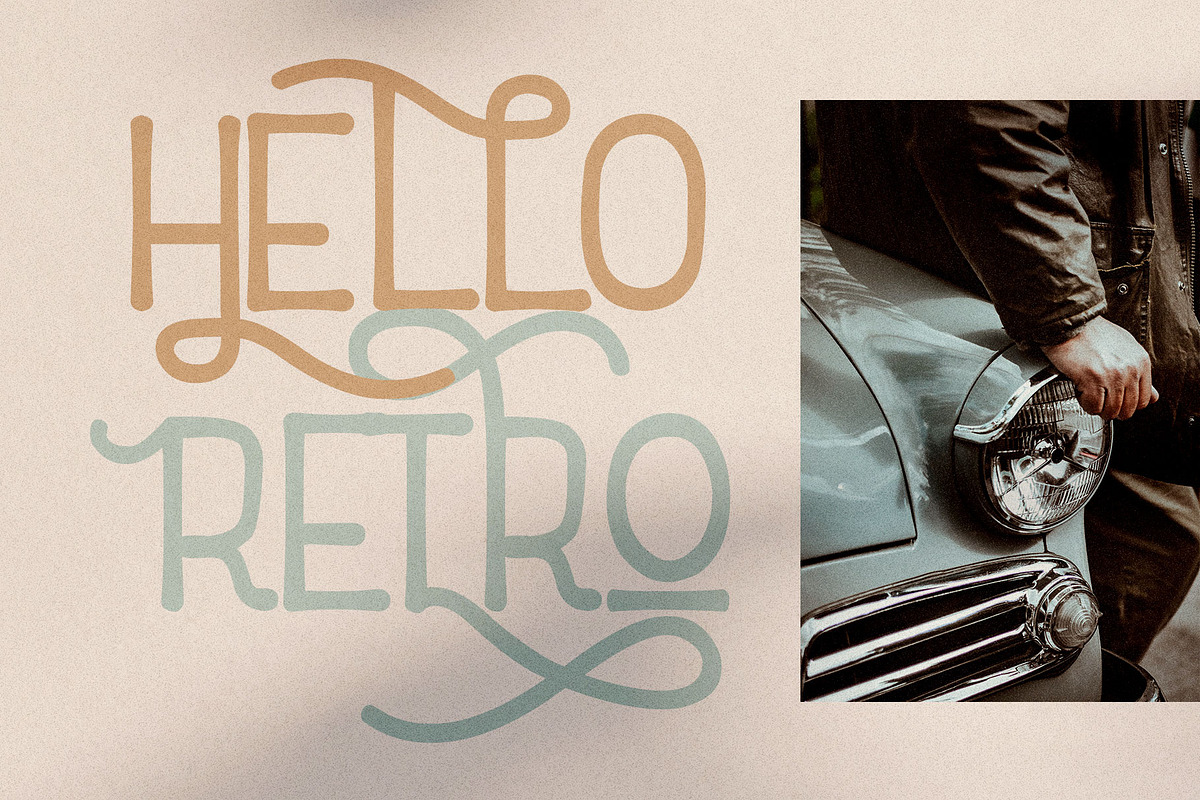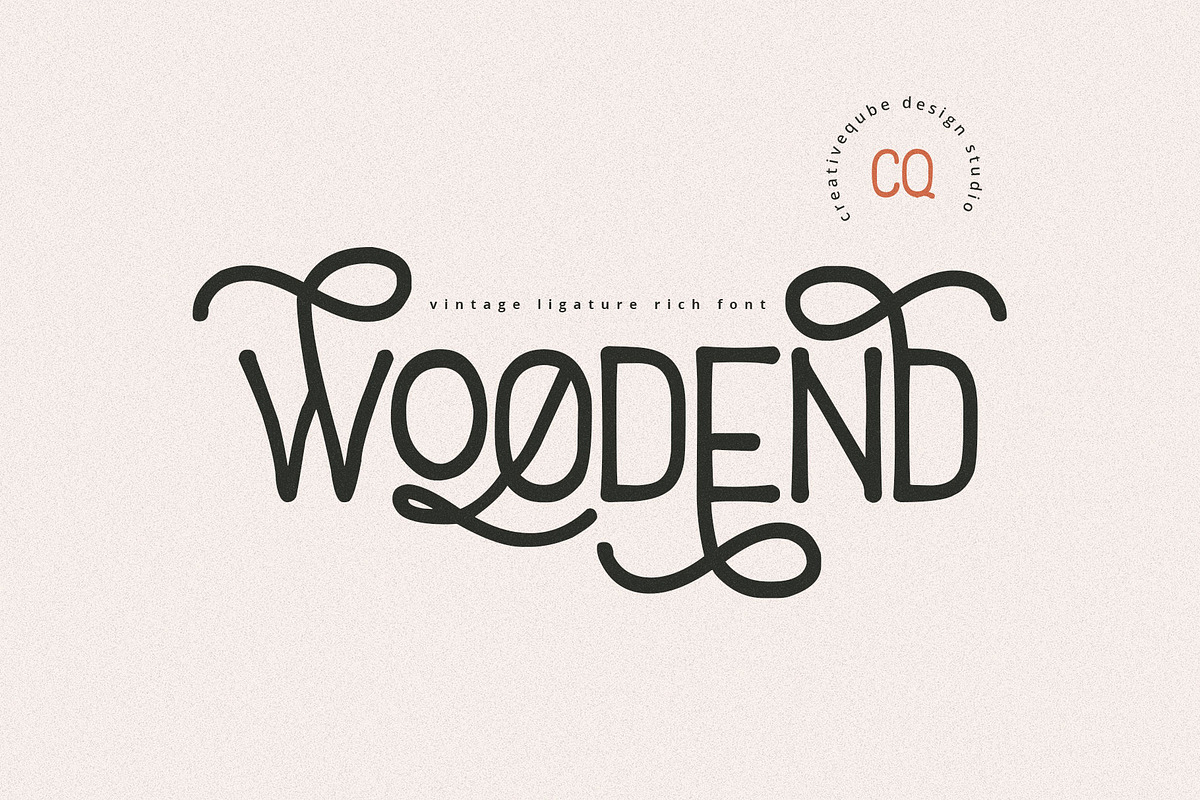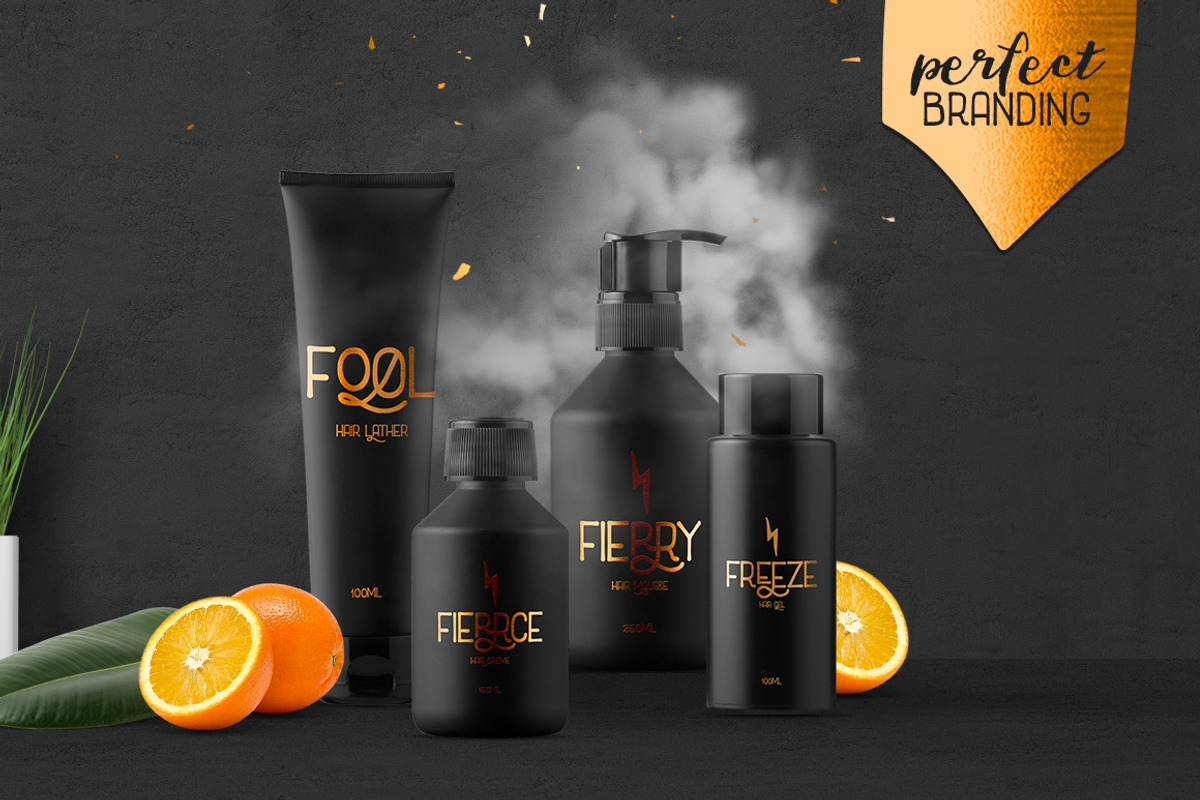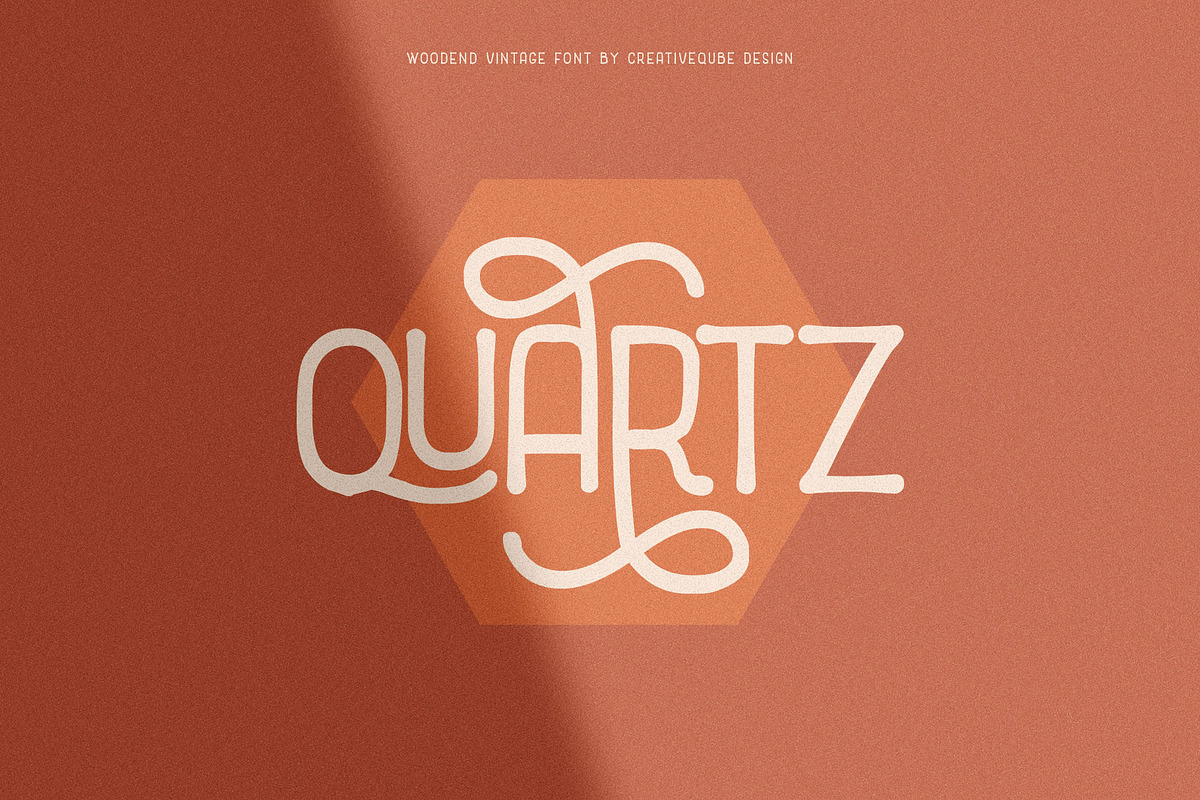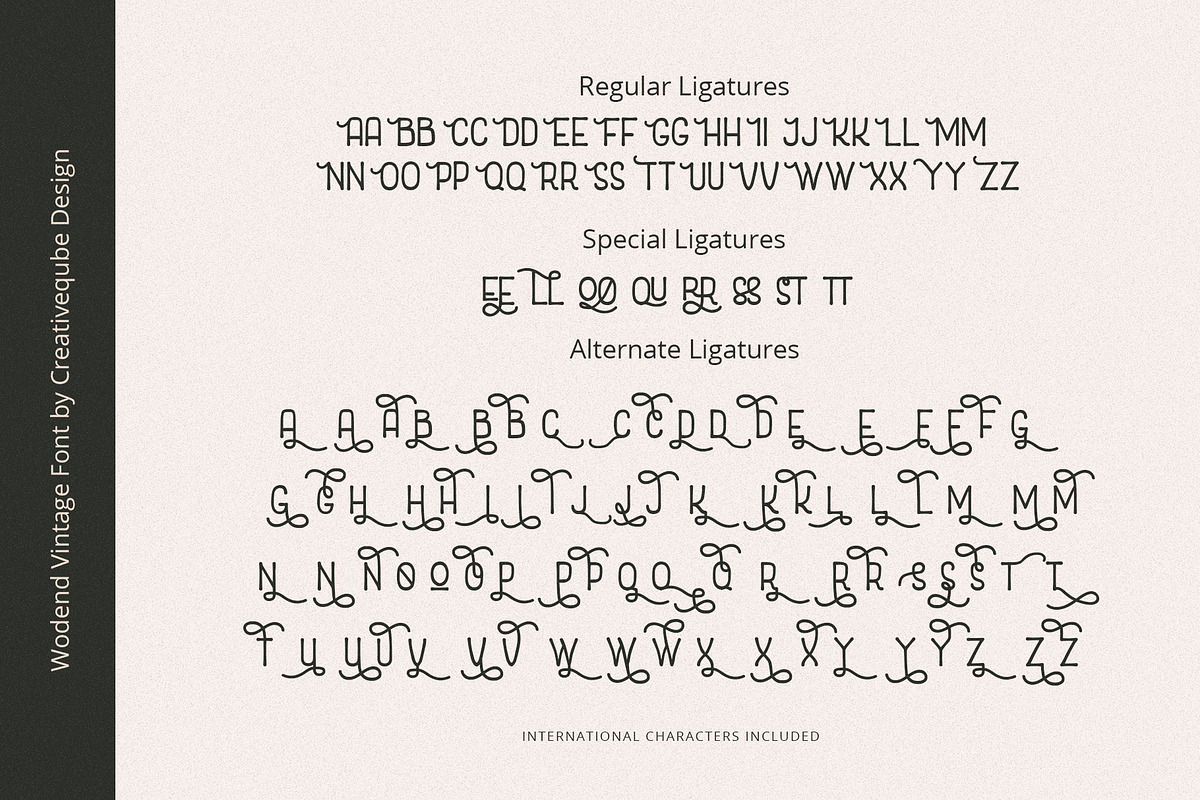
Woodend Retro Font Typeface
Woodend Retro Font Typeface by Creativeqube Design is a font selected for branding, posters, packaging, typography.
- Loaded with extras, alternates, swashes, and standard ligatures, this font is oozing with character.
- Woodend Regular
Why Woodend Retro Font Typeface is worth a look
Woodend Retro Font Typeface by Creativeqube Design fits naturally into Branding, posters, packaging, typography.